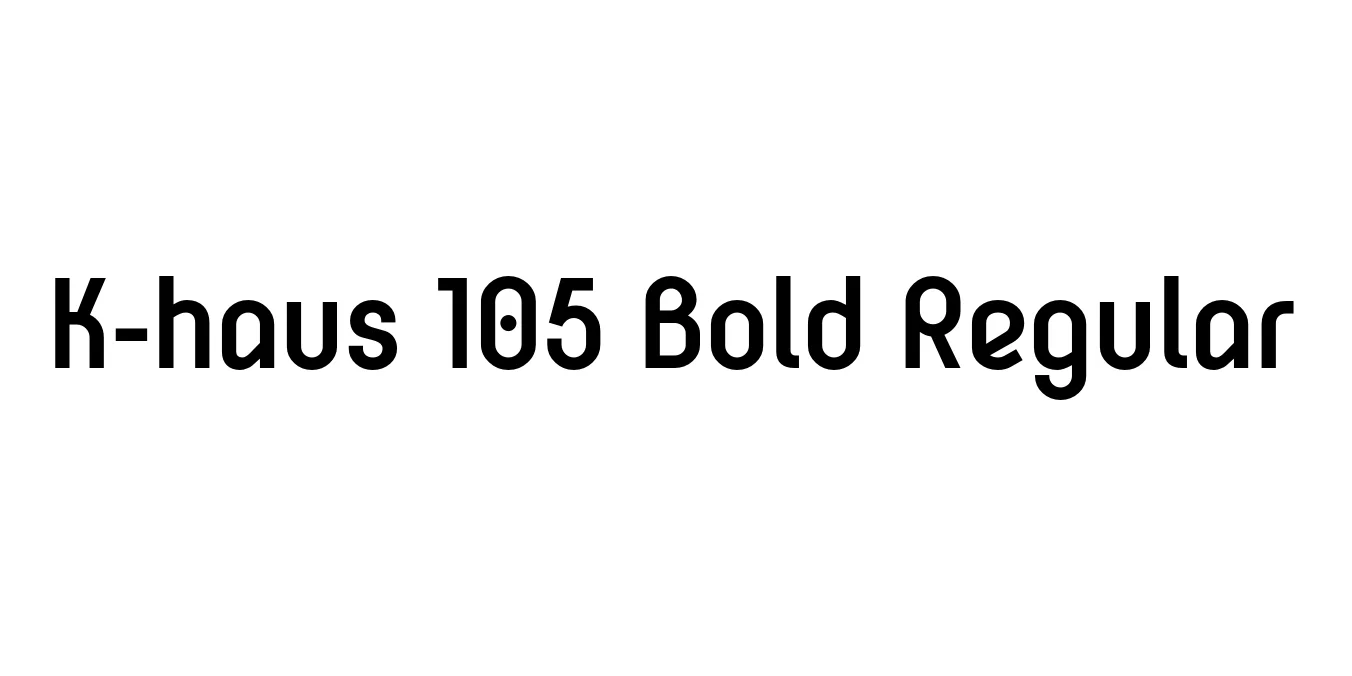
K-haus 105 Bold Regular
Designed by Karl-Heinz Lange / FontFabrik
| Font Name | K-haus 105 Bold |
| Category | Geometric Sans-serif |
| Designer | Karl-Heinz Lange / FontFabrik |
| Similar Fonts | Futura, ITC Avant Garde Gothic, Montserrat, Neuzeit Office |
K-haus 105 Bold Regular is a distinguished member of the K-haus typeface family, deeply rooted in the functional aesthetics of the Bauhaus movement. Originally conceived to capture the spirit of early 20th-century modernism, this font features strictly geometric structures and balanced proportions. The "105" designation refers to its specific weight and optical balance, offering a robust presence that maintains the clarity and simplicity pioneered by German design schools.
This typeface is characterized by its monolinear stroke weights and circular curves, making it an ideal choice for contemporary designers seeking a minimalist yet authoritative voice. The Bold Regular variant excels in display environments where its solid architecture and clean counters provide excellent legibility even from a distance. Its revival in the digital age ensures that the legacy of geometric sans-serifs remains a staple for editorial, architectural, and corporate identity projects.
K-haus 105 Bold Regular Best Uses
Perfect for high-impact titles and large-scale headers.
Ideal for minimalist logos and corporate identity systems.
Excellent for pull quotes and section headers in magazines.
High legibility makes it suitable for architectural wayfinding.
Well-suited for Bauhaus-inspired graphic design and event posters.